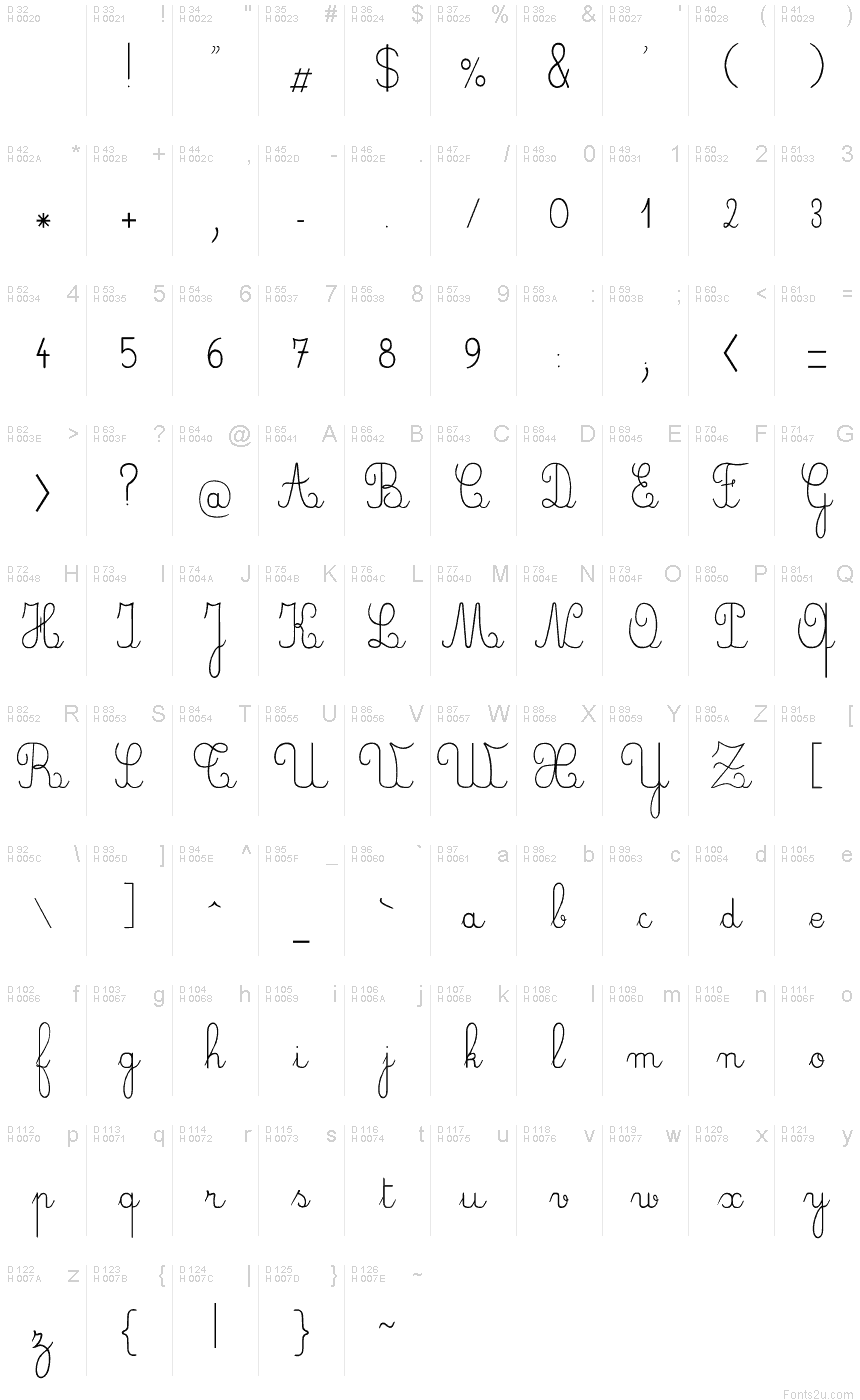
CrayonE
CrayonE font by [Author] is a free school script typeface that captures the loose, loopy feel of handwriting on a chalkboard. Its single-line strokes, airy curves, and gentle wiggles feel casual and friendly, like notes passed in class or doodles in the margin. The letters connect smoothly, creating long, flowing words that read clearly while still feeling playful and hand-drawn.
Using CrayonE, you can bring warmth and personality to classroom posters, kids’ worksheets, educational apps, birthday invitations, craft packaging, and playful logos. This free font shines when used large enough for the curls to breathe, and it works beautifully paired with a simple rounded sans serif for body text. Use CrayonE for headings or short phrases where you want an approachable, childlike voice without losing legibility.